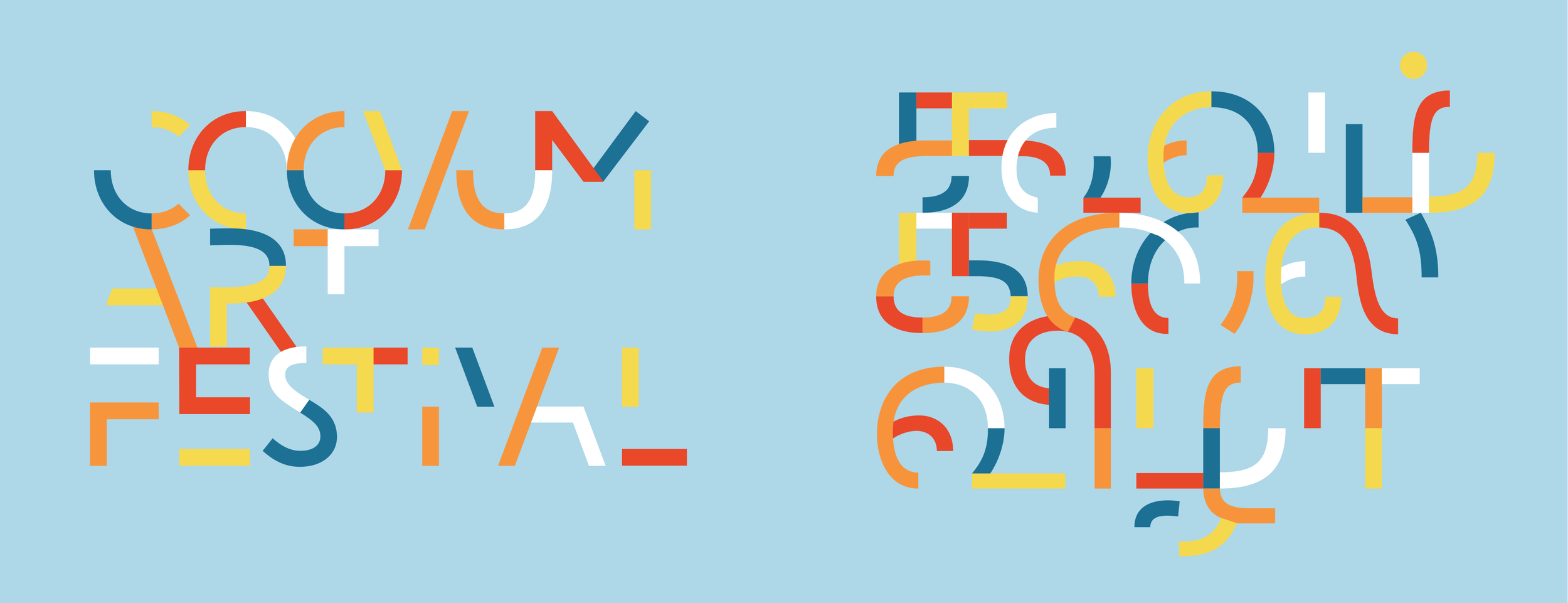
Coovum Art Festival
In 2015, I worked on the branding for Coovum Art Festival under the art direction of Vidisha Saini. Coovum Art Festival was a public art and outreach project that lead people to the banks of Coovum river, to take ownership and celebrate the river and water through art. The bilingual custom-lettered logo plays on the idea of absences — a reference to the Coovum river that has all but disappeared from Chennai.